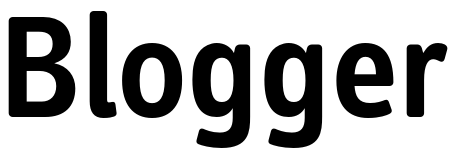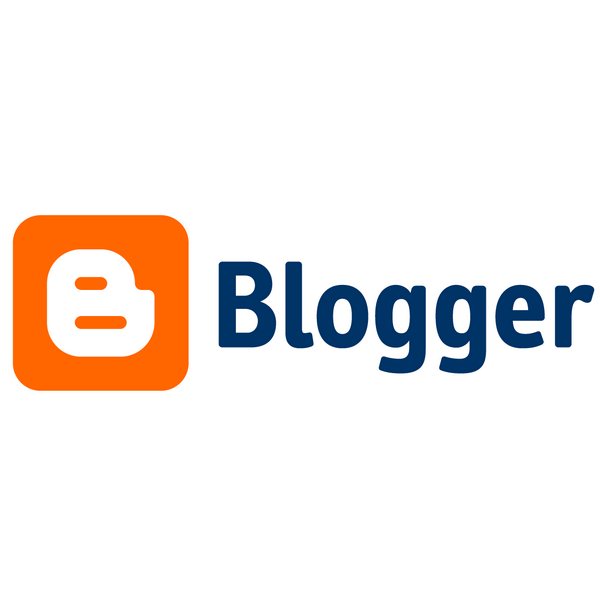
Blogger Font
Fonts in UseBlogger is a free online publishing service owned by Google that allows individuals to create and manage their own blogs. Users can customize their blogs with various templates, themes, and gadgets and publish posts with text, images, and videos.
The Blogger logo showcases an orange rounded square with a white stylized "B" in the center, accompanied by the "Blogger" logotype to the right. The font utilized for the lettering is akin to Erik Spiekermann's Info Disp Smibold Roman, which is available for purchase as a commercial font here.